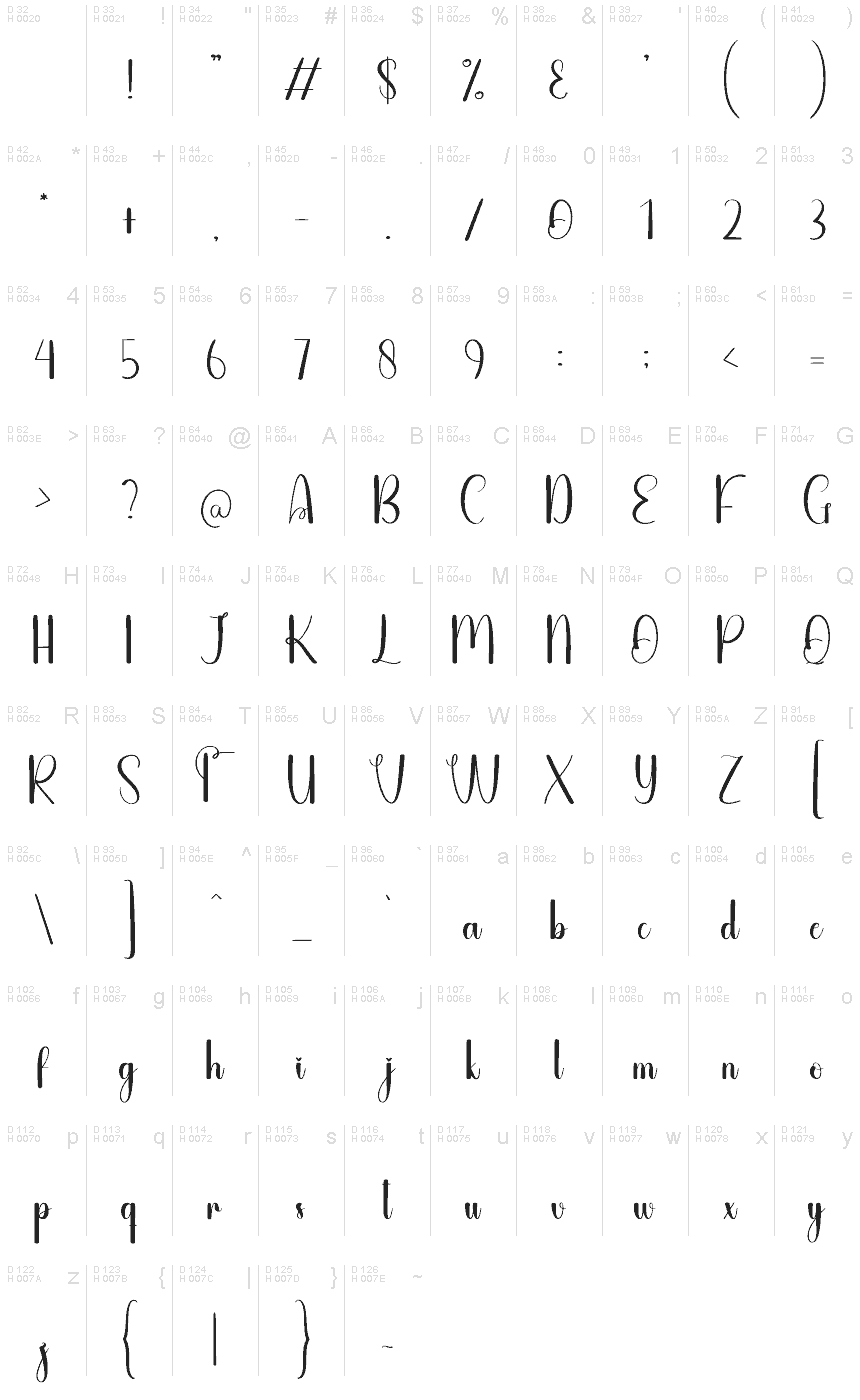
Blackline
Blackline font by Andi Moz is a lively and modern handwritten font with a stylish look. It is designed to give the elegant essence that a condensed font would offer. The typeface is condensed in width with smooth connected elements which combined result in its unique appearance.
Have free access to experiment with Blackline in your invitations, headers, social media posts, or printed quotes. Show it off on professional business cards, modern web designs, anniversary-occasion greeting cards, diaries, or elegant wedding stationery. Other ideas include rebranding projects such as food products or beauty product logos and packaging.